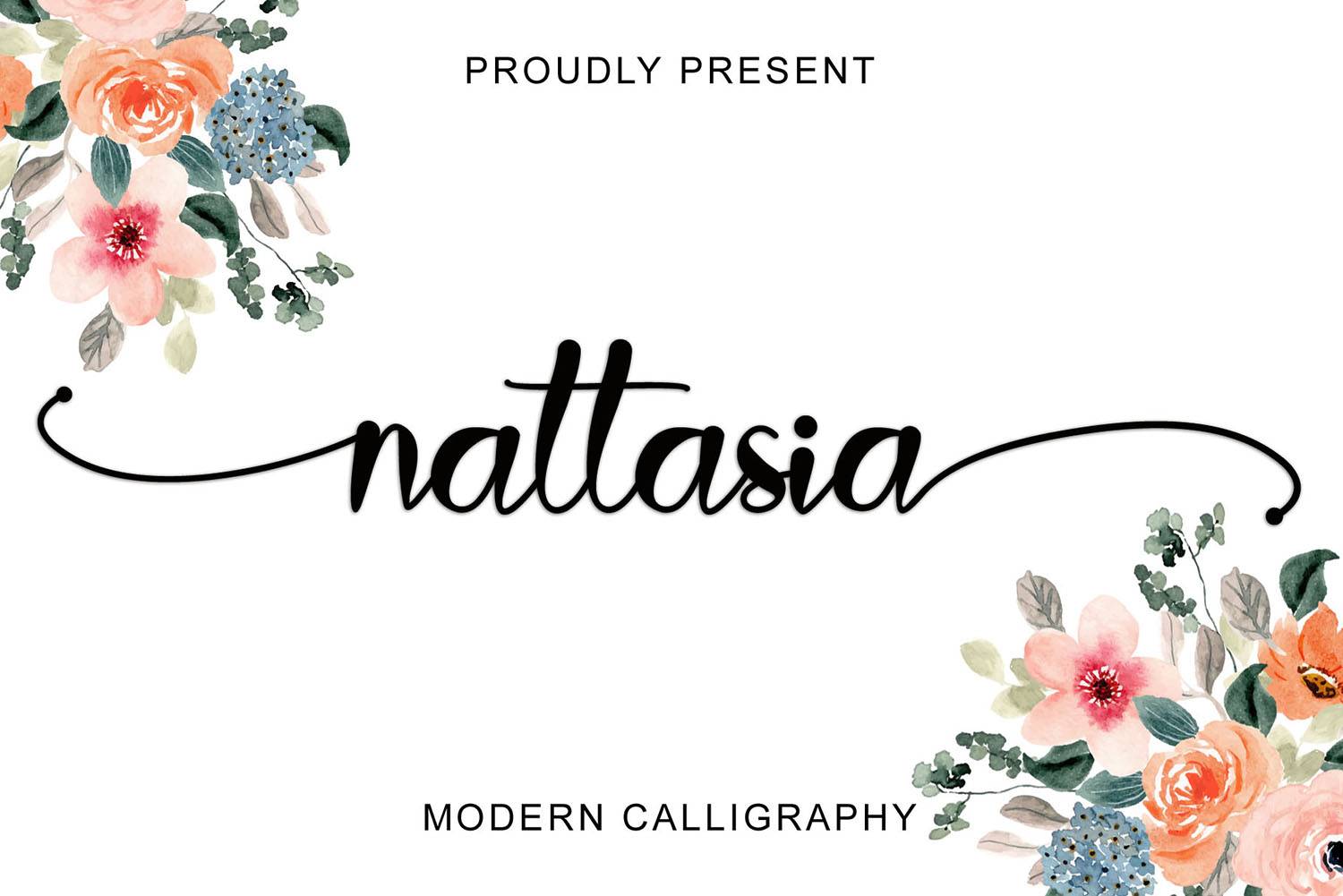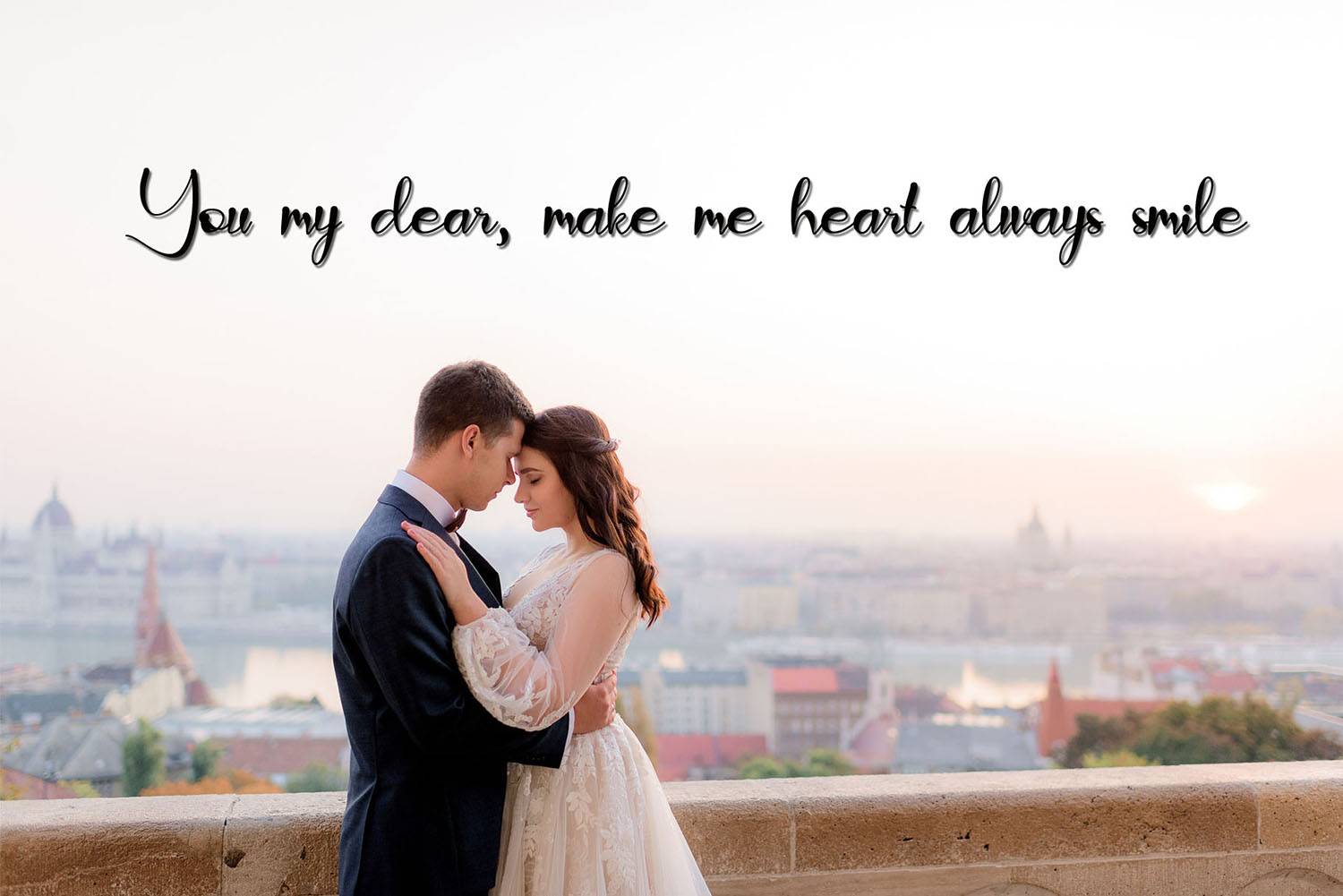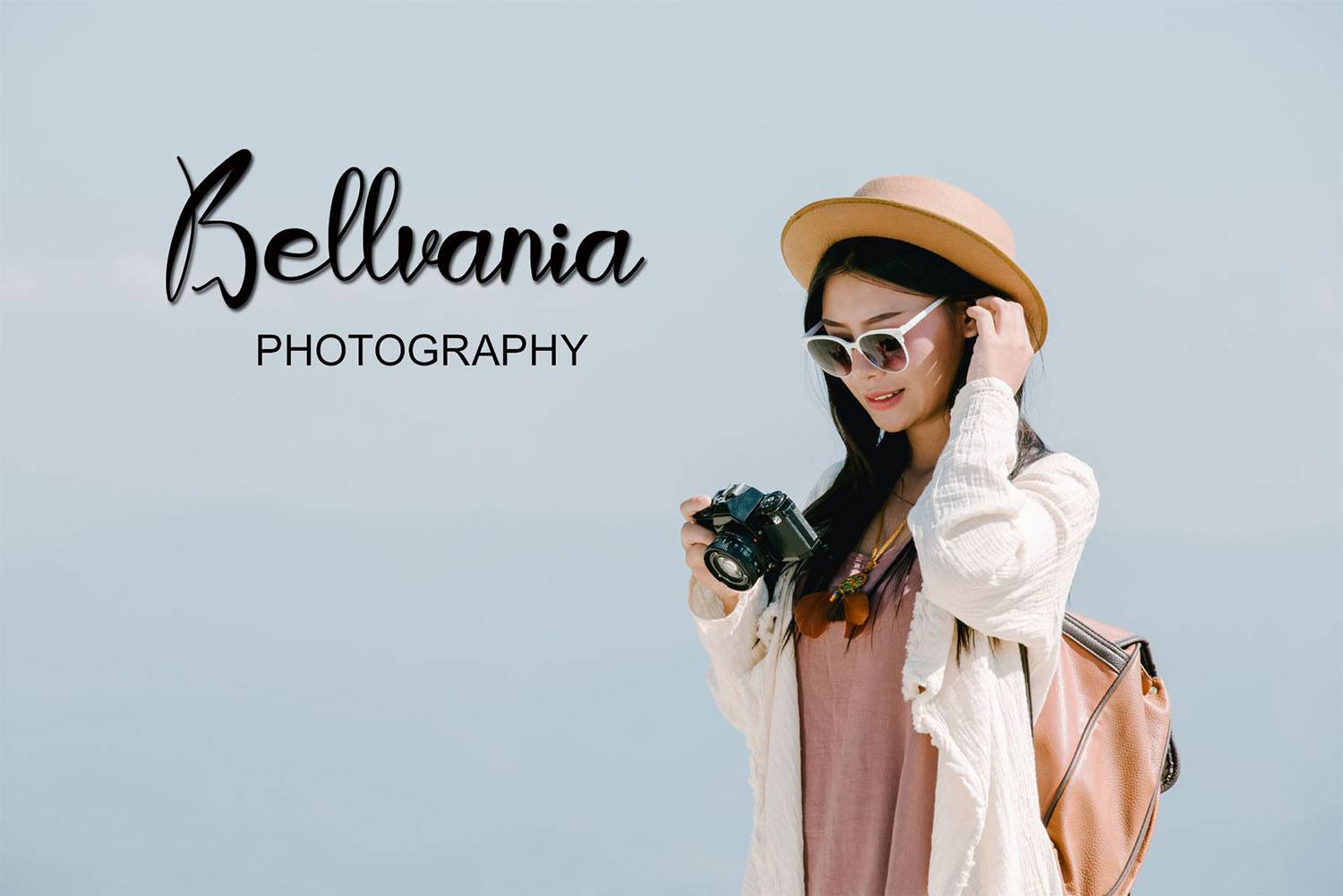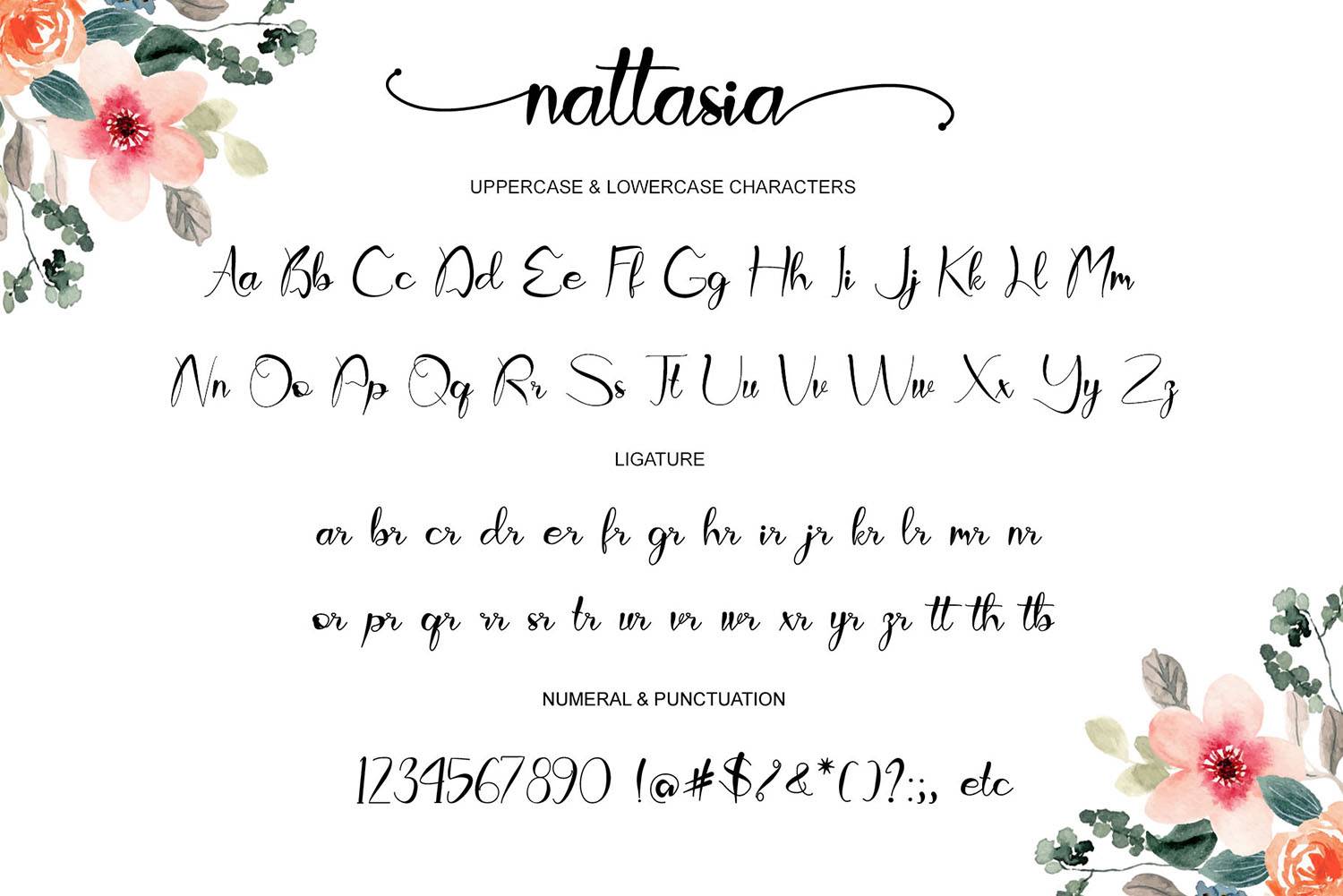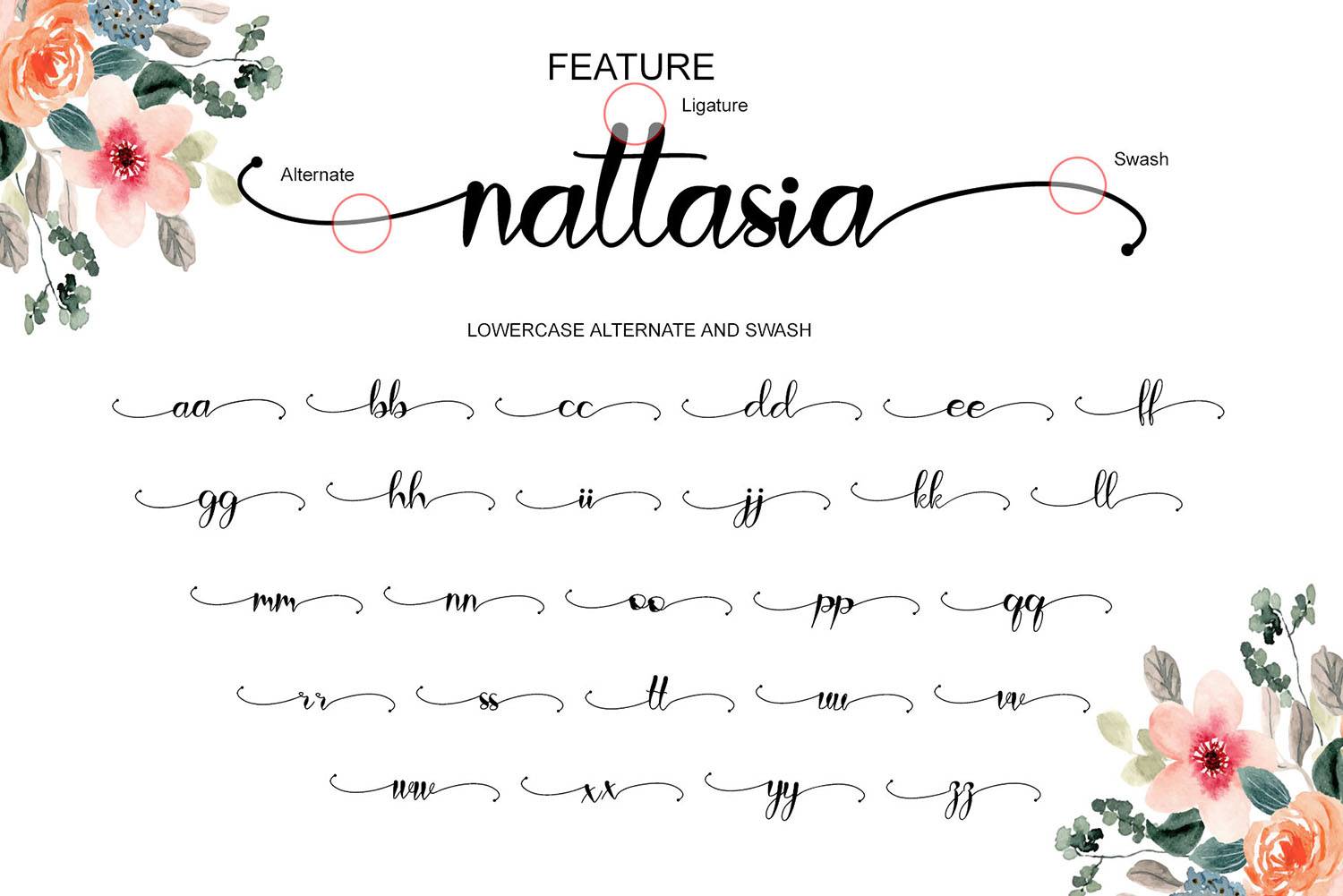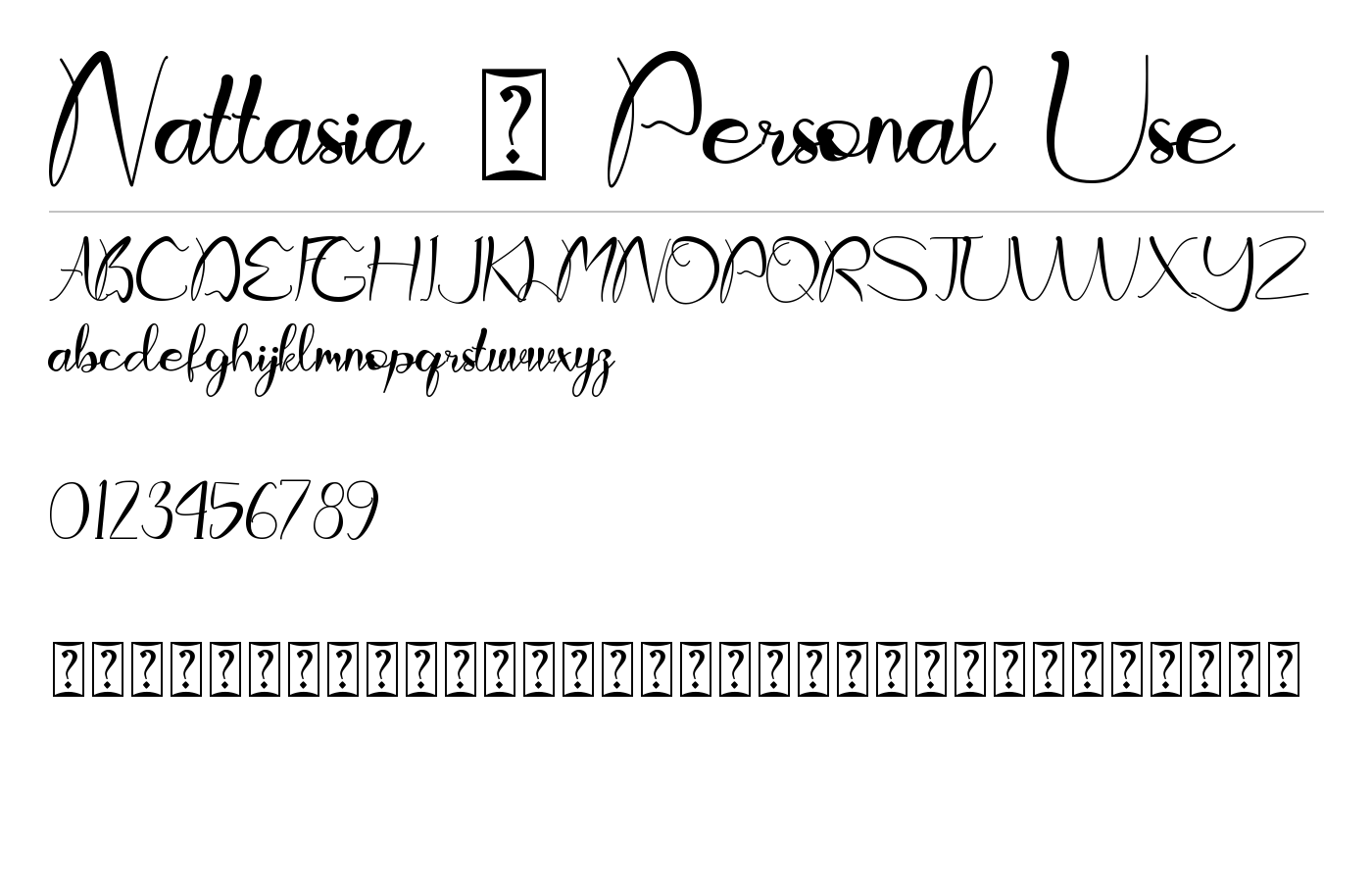
Nattasia is a delicate script font with elegant, flowing strokes that give it a handwritten, personal touch. Its slender, slightly varied line weights and curvy, ornate letterforms make it perfect for feminine and romantic designs, such as wedding invitations, fashion branding, and greeting cards. This font works beautifully in headlines or decorative text where a graceful, stylish feel is desired.
Nattasia Font
About Nattasia Font
| Font family | Nattasia Font |
| Designer | Vincentius Kriswandono |